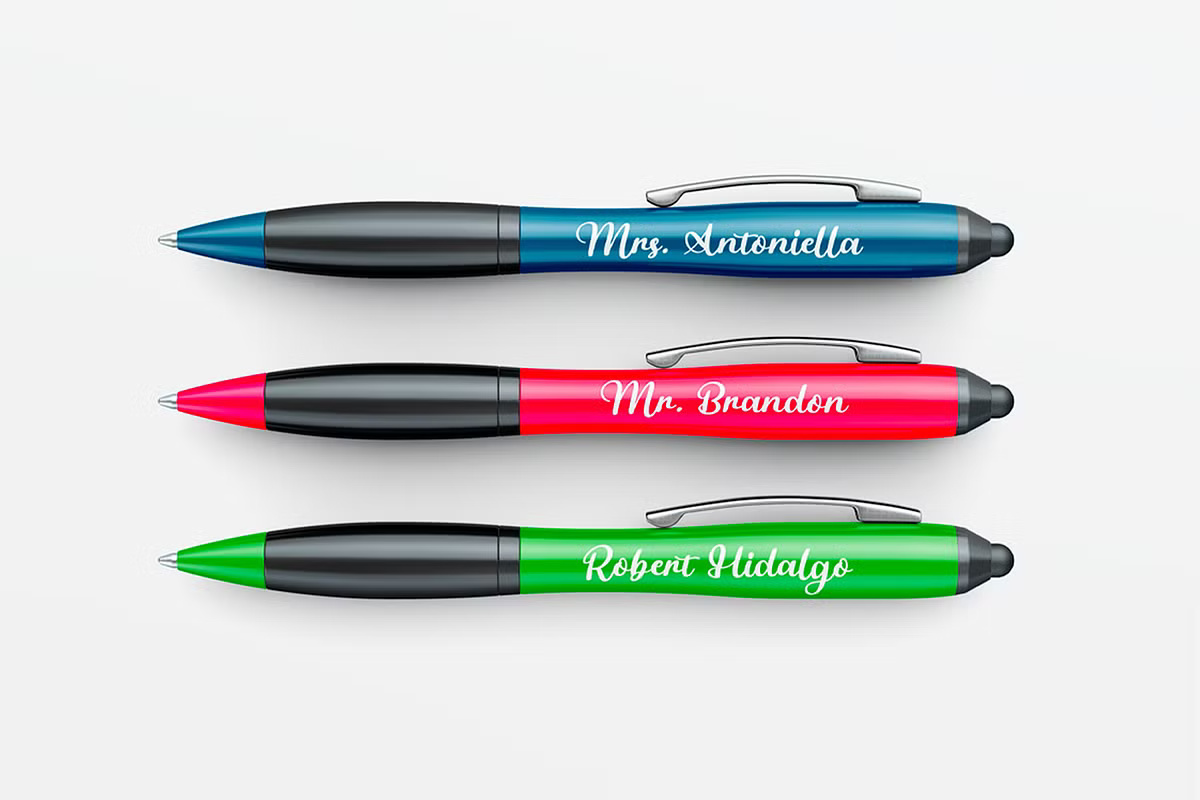
Grand Opera Font
Grand Opera is an elegant handwritten script typeface with a charming classic touch, making it a top choice for refined designs. Its graceful curves evoke the beauty of a handwritten masterpiece, perfect for invitations, branding, and any project that calls for sophistication.
Grand Opera Handwritten Script Font